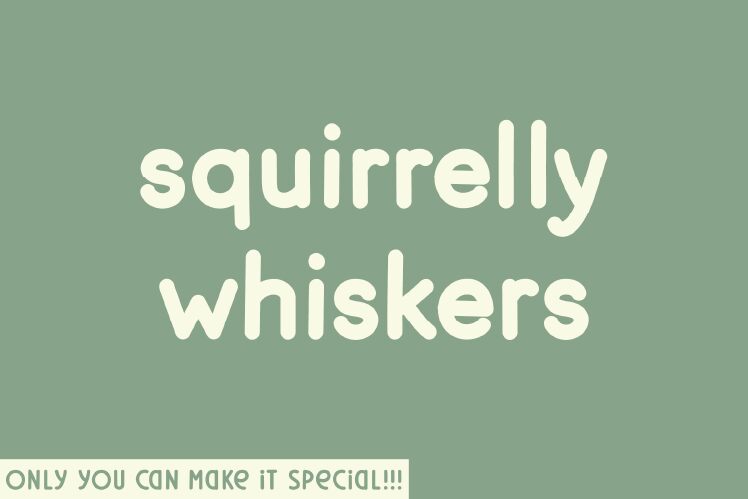
Squirrelly Whiskers font by Hanna Bie of Hanna Bie Creative Studio is a playful and engaging display typeface. Its bold and thick strokes create a sense of whimsy and fun, perfect for capturing attention in various design projects. This lighthearted free font exudes a charming personality that feels both fresh and accessible.
Ideal for children's books, playful logos, and creative advertising campaigns, Squirrelly Whiskers brings an element of delight to every word it touches. The inviting curves make it an excellent choice for designers looking to add a touch of eccentricity while maintaining readability.